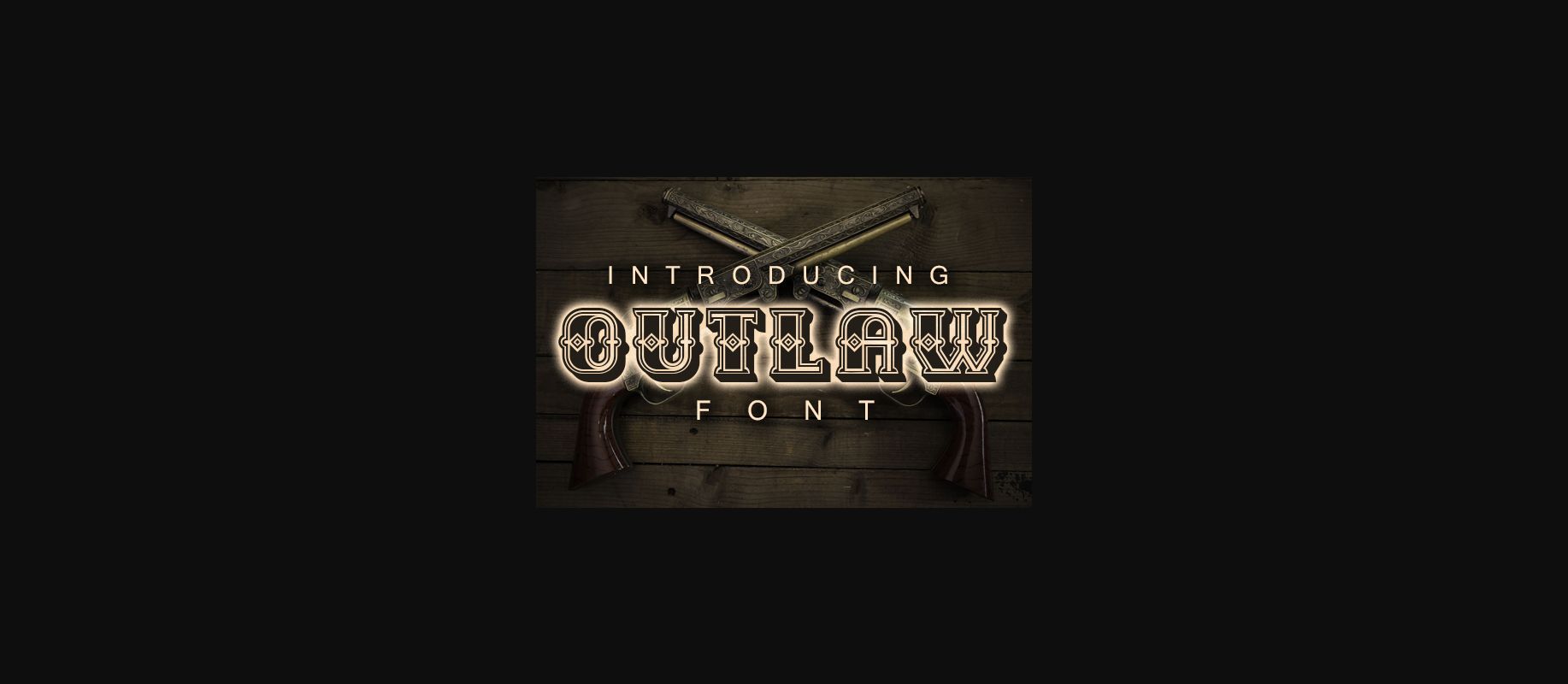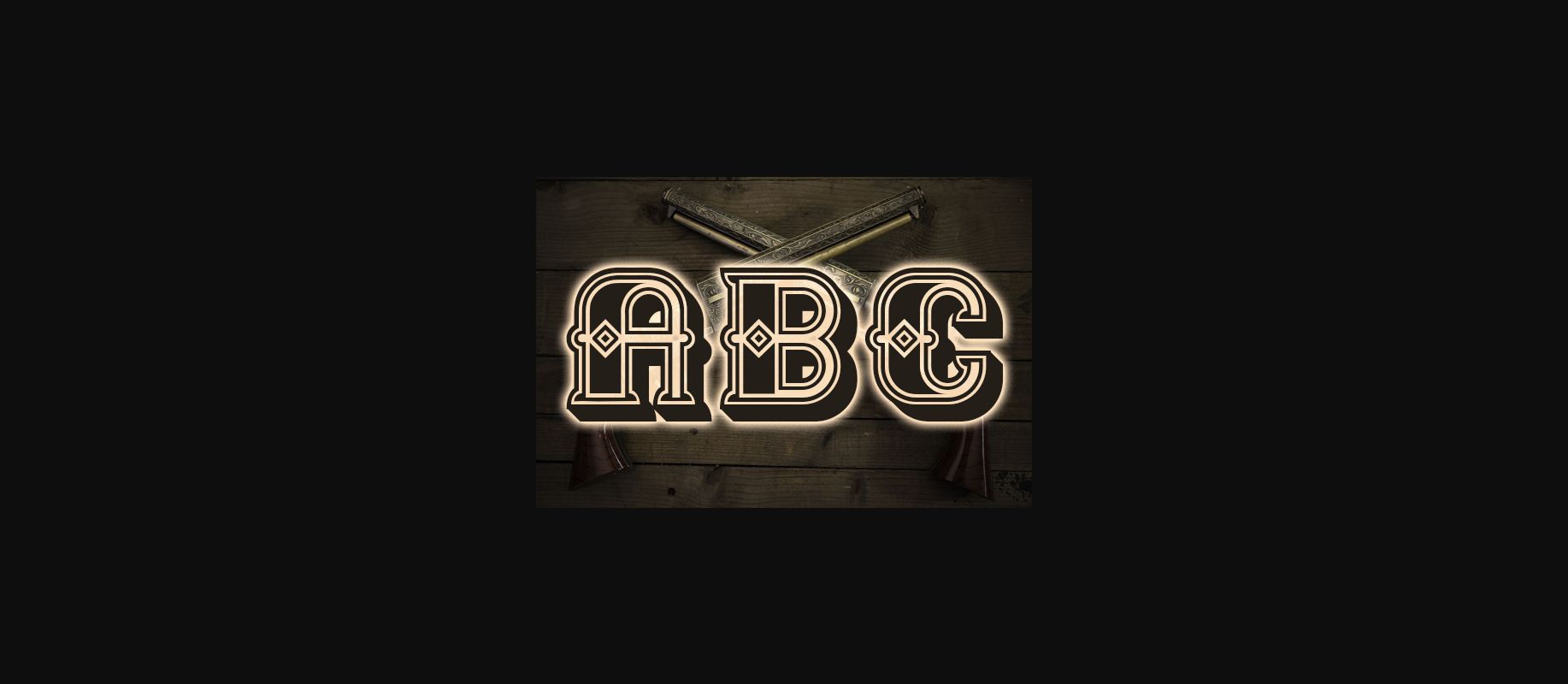
About Outlaw Font
Outlaw is a bold decorative font defined by a western look. It will look great on every poster, banner, or print you wish to create.